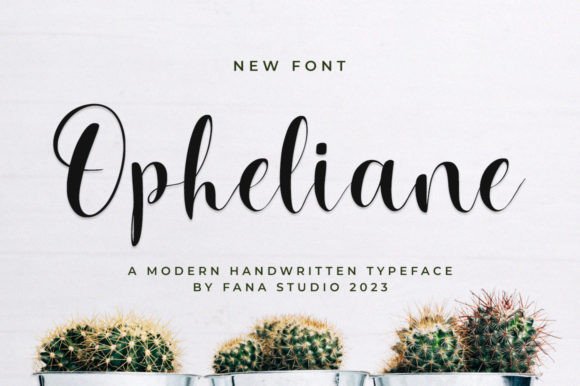
Feel the allure of elegance and creativity with Opheliane Font, a mesmerizing script font family from the innovative fanastudio. Enter the enchanting world of subway art, where your designs come alive with a captivating touch.
Immerse yourself in a symphony of grace with Opheliane Font, as its meticulously crafted characters dance across your screen. Inspired by the vibrant energy of subway art, this font family ignites a creative spark, inviting you to express your individuality.
Tailored to perfection, Opheliane Font is a versatile companion in the realm of visual communication. Watch as your wedding invitations, thank-you cards, and greeting cards come to life with a touch of sophistication. Its flowing lines and delicate curves add a personal and heartfelt touch to every word.
Your logos and business cards will shine with an air of intrigue and professionalism when adorned with Opheliane Font. It's as if each letter holds a secret, waiting to be discovered. Unleash your creativity and let your designs stand out with this exceptional font family.
With Opheliane Font, you'll embark on a journey of artistic expression. Its handwritten charm exudes a sense of intimacy and authenticity that resonates with audiences.
So, step into the spotlight and unveil your design prowess with Opheliane Font. Embrace the beauty of handwritten artistry and create masterpieces that captivate and inspire. The world of subway art awaits your arrival.